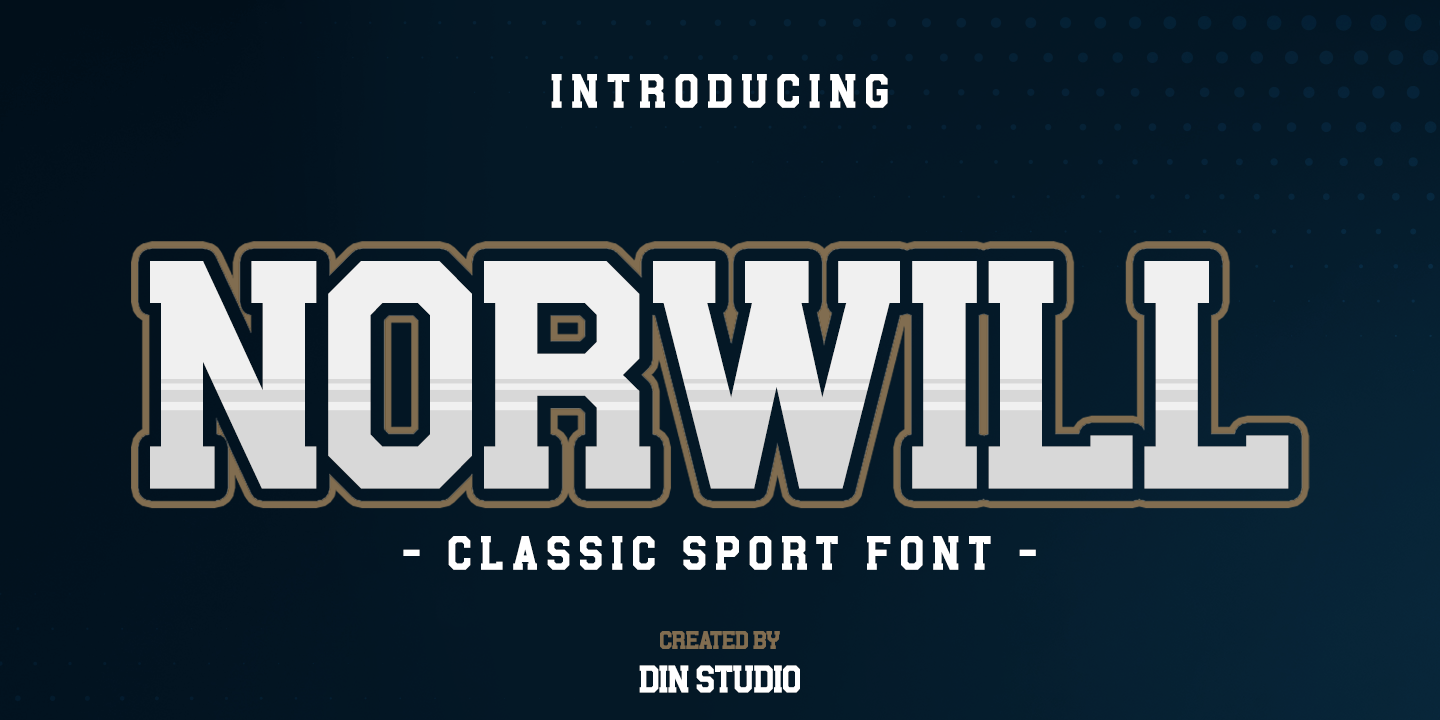
Norwill Font is ideal for Scandinavian design projects, Nordic tourism marketing, minimalist architecture presentations, clean lifestyle branding, sustainable product packaging, modern furniture catalogues, contemporary art gallery materials, hygge-inspired wellness centers, eco-friendly business communications, and sophisticated cultural institution graphics. This refined typeface excels in applications where Nordic simplicity and Scandinavian elegance need to be communicated with pure functionality and timeless design philosophy that embodies Northern European sophistication.
What makes Norwill Font exciting is its extraordinary ability to capture the essence of Nordic design philosophy through its clean, purposeful letterforms that embody the Scandinavian principles of functional beauty and understated elegance. The font reflects the spirit of Nordic minimalism with its balanced construction and honest proportions that suggest the clarity of Northern fjords and the precision of Swedish craftsmanship. Its carefully refined character details and serene personality create an atmosphere of peaceful sophistication that resonates with design enthusiasts who appreciate the profound beauty found in simplicity and authentic functionality.
The Norwill Font family typically includes Light, Regular, Medium, and Bold weights, each maintaining the signature Nordic characteristics and clean aesthetic. Some versions offer extended character sets with comprehensive Scandinavian language support, including special Nordic characters and diacritical marks. The family may also include condensed variants for efficient layouts and display cuts optimized for architectural and design applications requiring maximum clarity and visual impact.
Whether you're creating Nordic-inspired brand identities, Scandinavian lifestyle materials, or minimalist design solutions, Norwill Font Free Download delivers the perfect Nordic refinement your sophisticated projects deserve. Its Scandinavian character and minimalist styling make it an invaluable asset for design studios, lifestyle brands, and cultural institutions working in contemporary design, sustainable living, and Nordic aesthetic sectors where authentic simplicity and functional elegance are fundamental to creating meaningful connections with audiences who value thoughtful design.